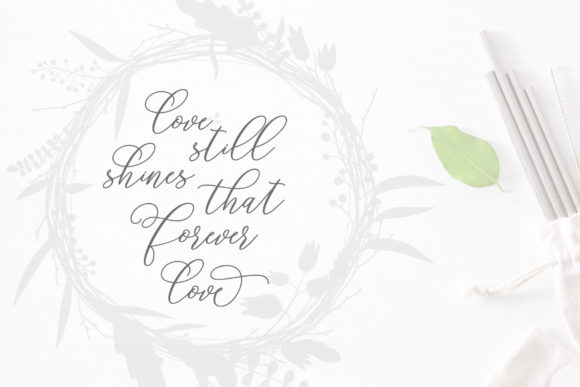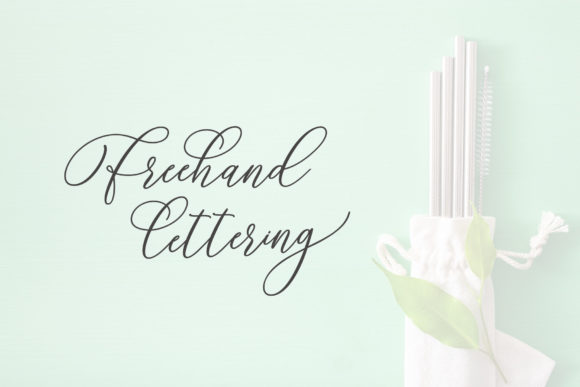
Barbara Script Font
db-ku.com - Script & Handwritten -- Barbara is a splendid script font featuring stylish characters that flow beautifully into each other. Exquisite and natural, this typeface is perfect for creations that need a personal note.